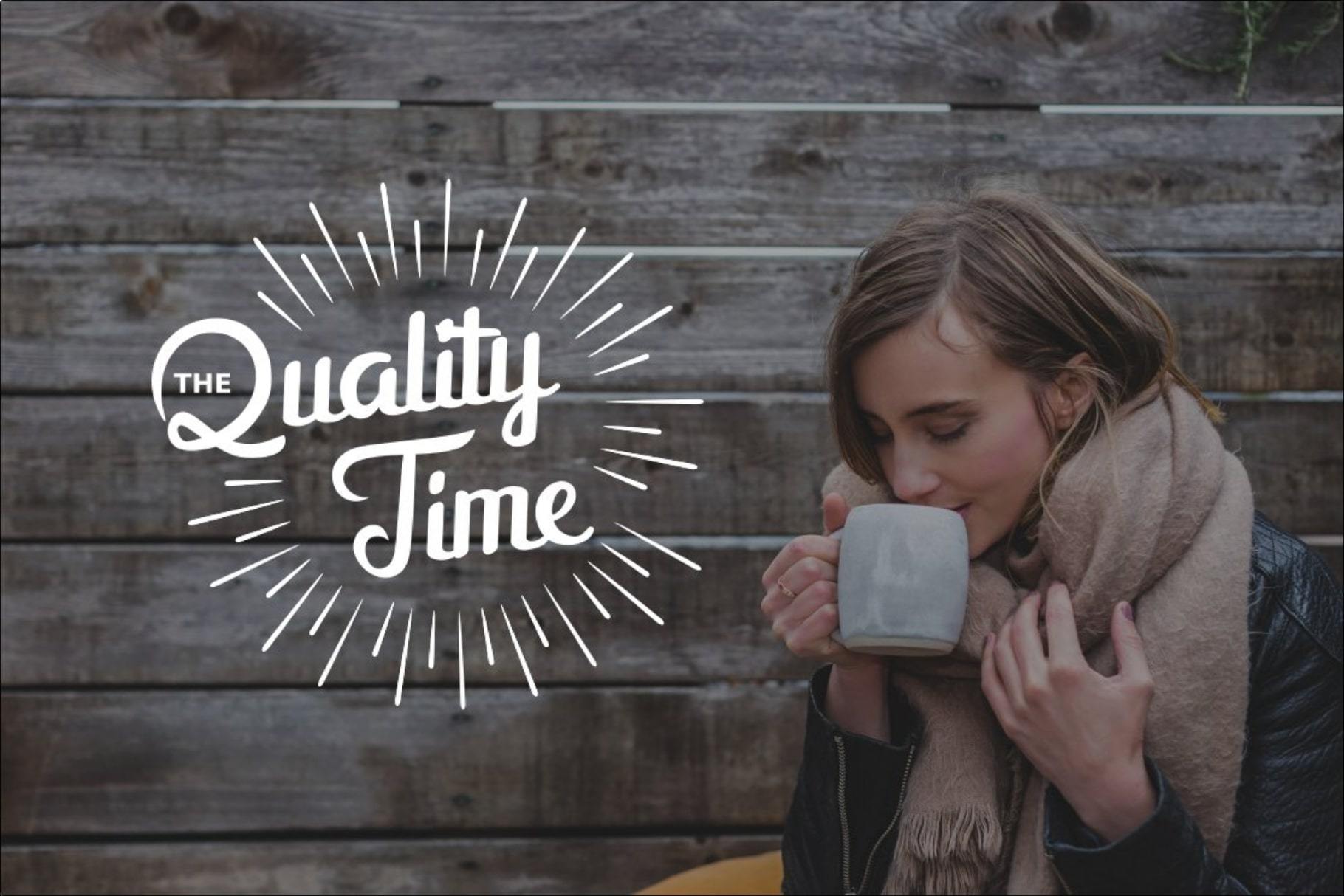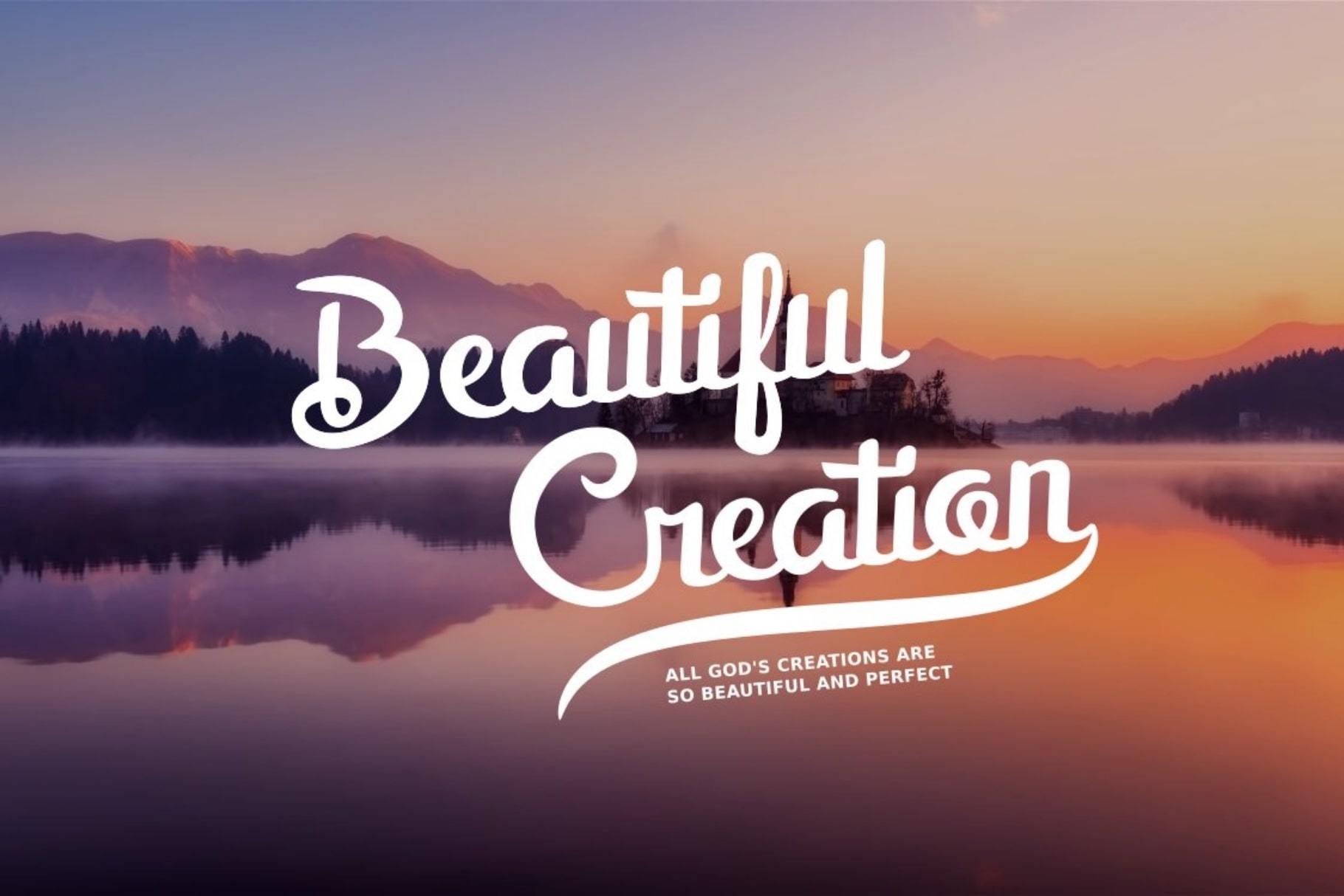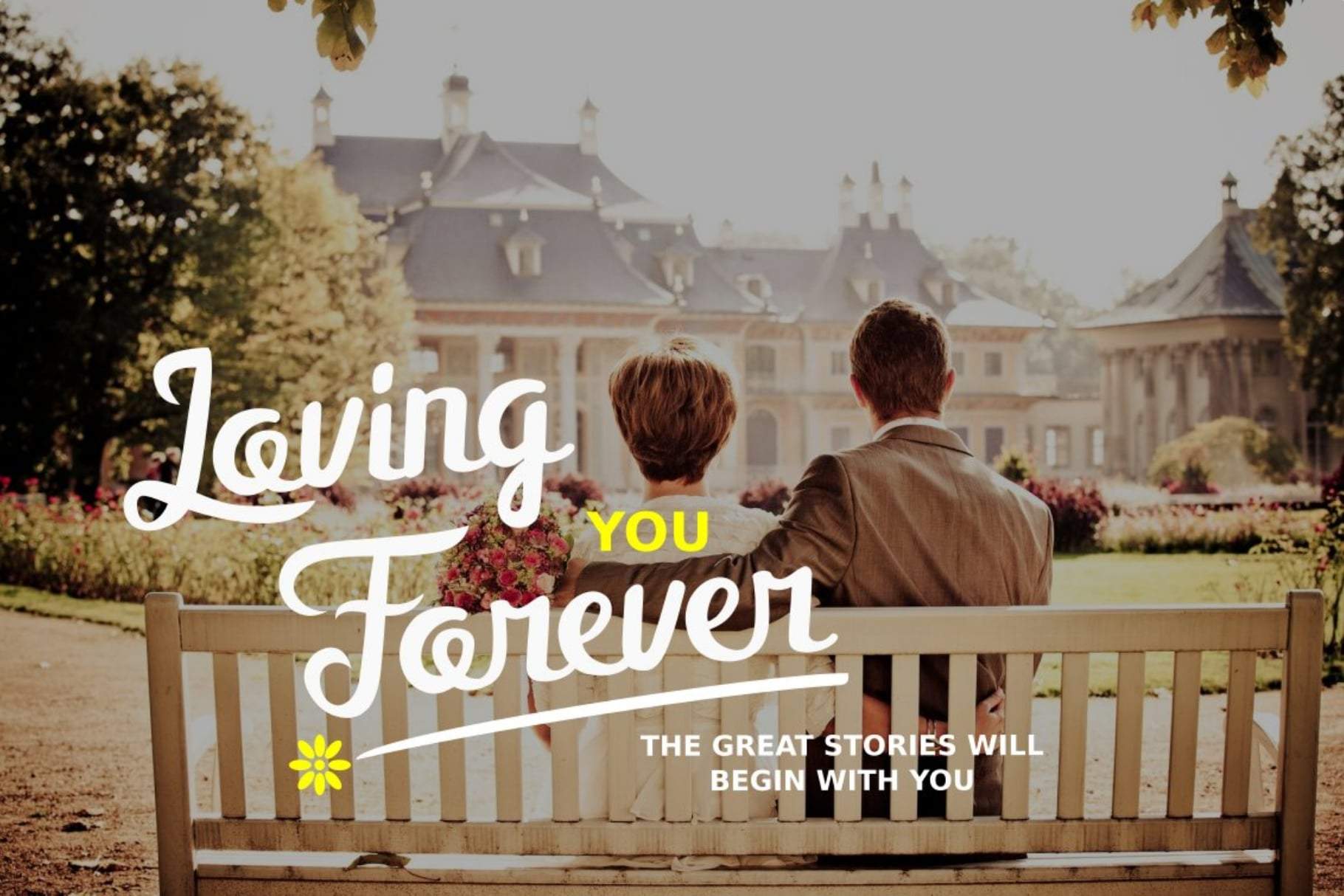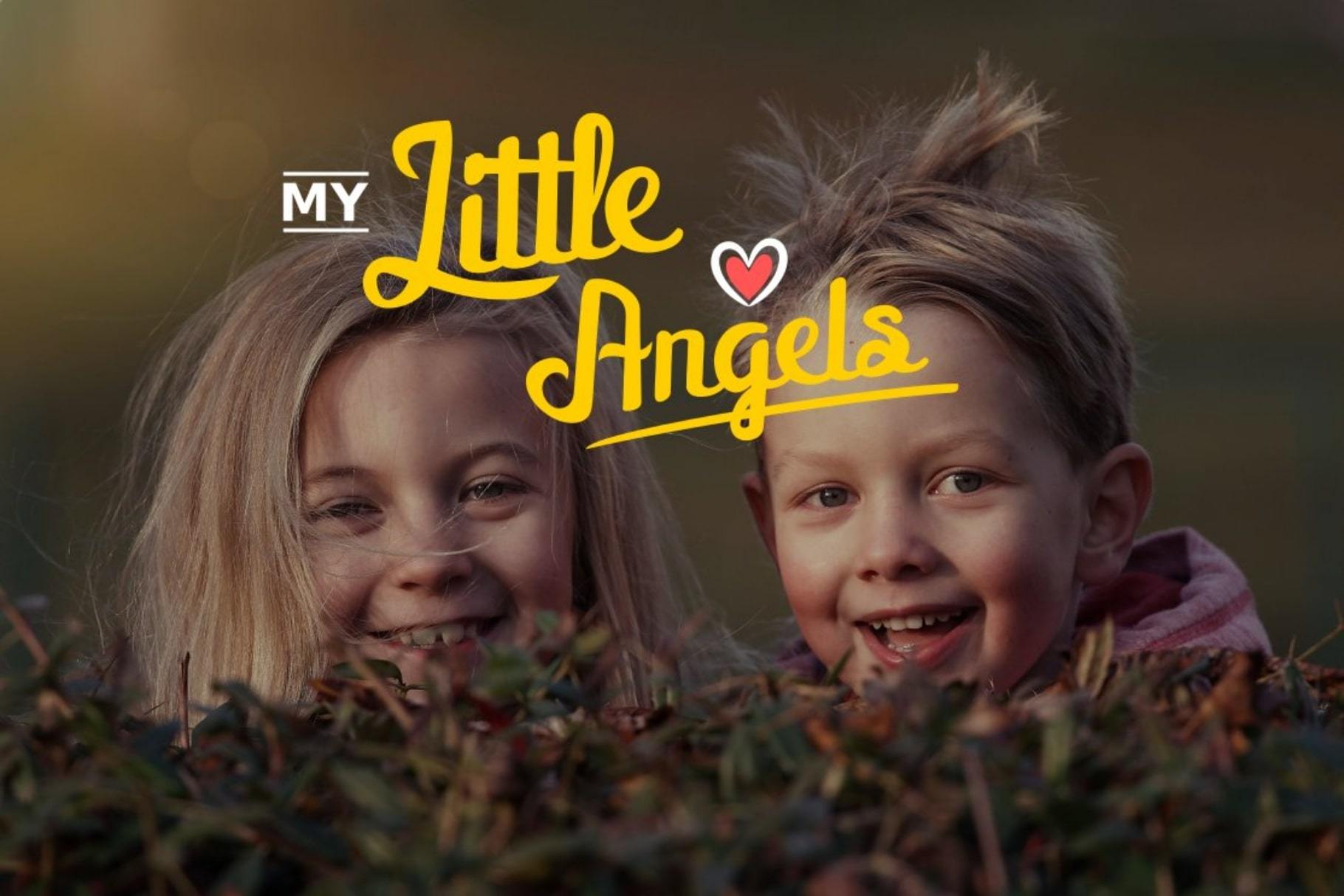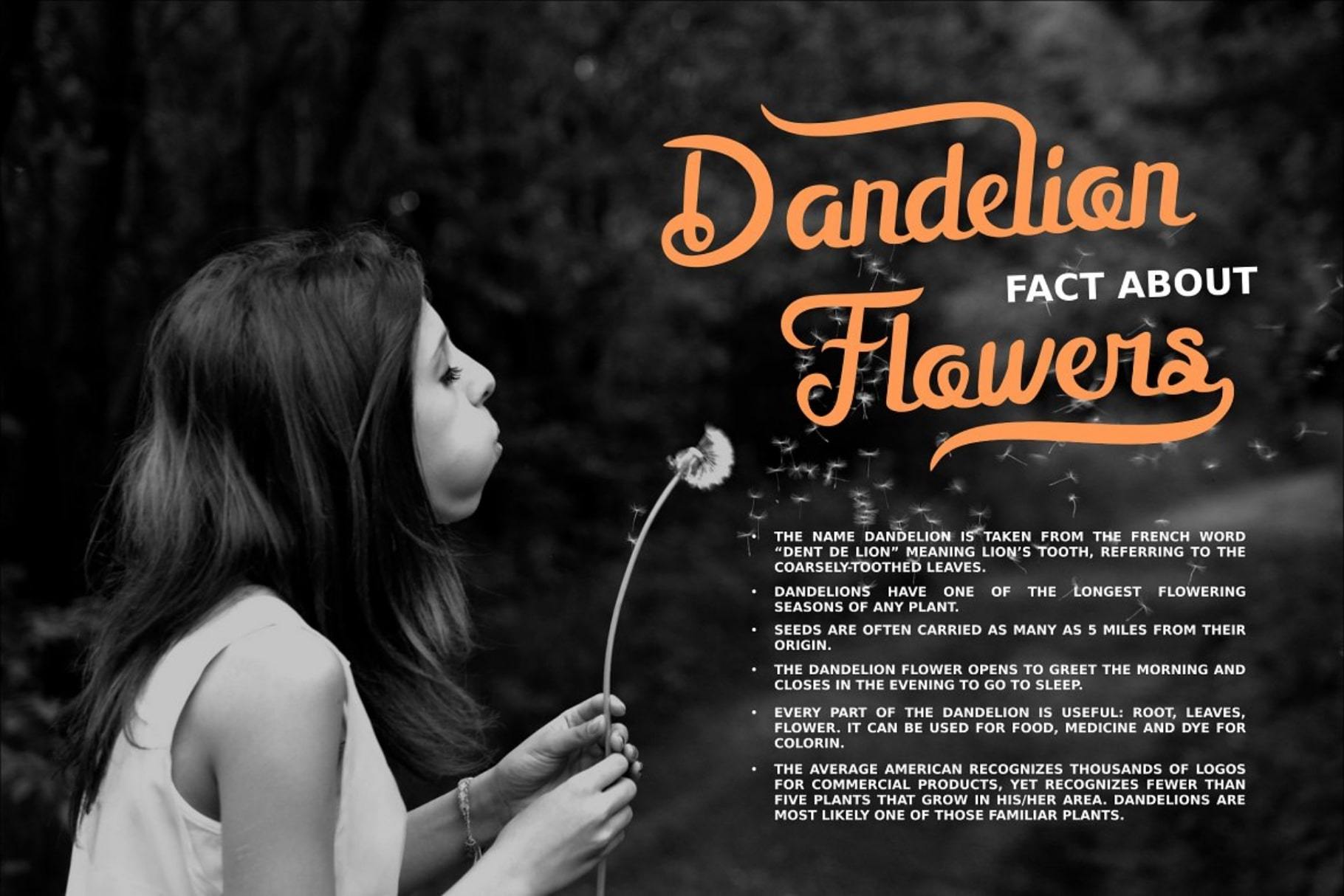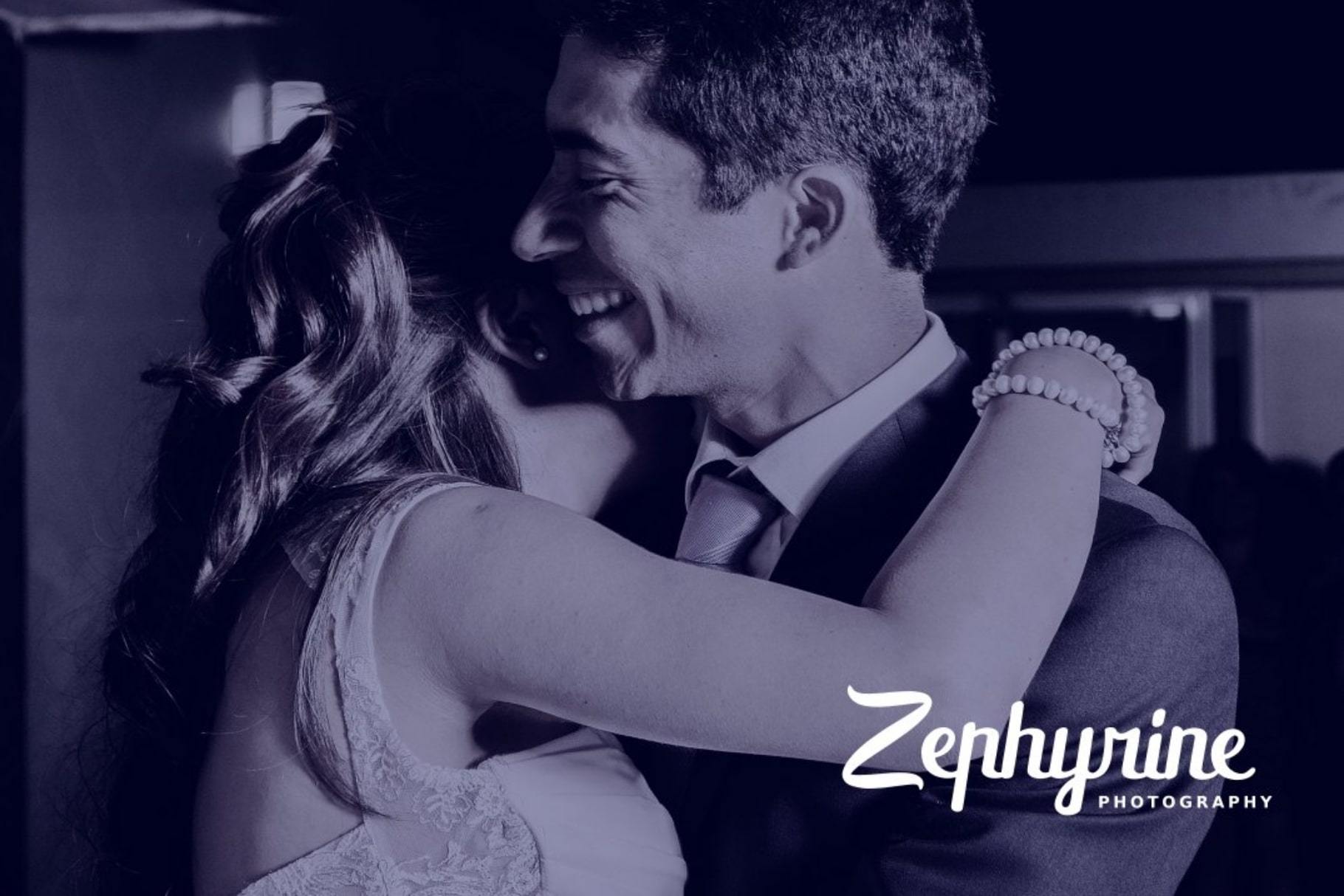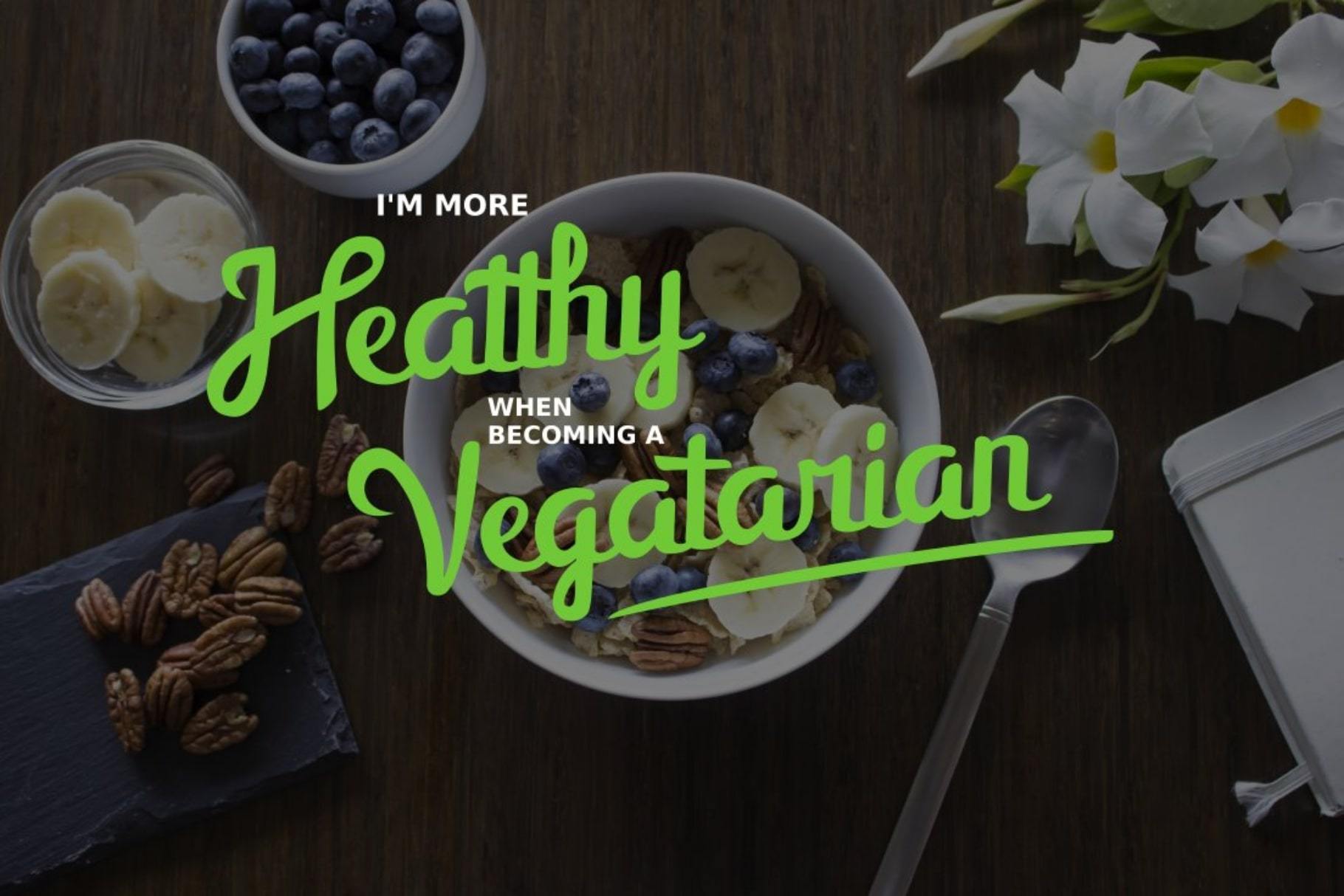
Introducing Mellifret script font. Mellifret is a semi-bold font which have characters that are strong, bold, clean, and elegant. So Mellifret are suitable for poster, logo, cover book & magazine, website tittle, wedding card and etc. This is a package on Mellifrent font: -Multilingual support like are Danish, Cornish, Croatian, Czech, Filipino, French, Portuguese, Hungarian, Irish, English, Finnish, Norwegian, Polish, Romansh, Italian, Swiss German and etc. – Includes ligatures set, alternate font, and swash characters set. I hope you enjoy using mellifret font, if you have anything question about this font please let me know with your comments. Thanks for watching and have a nice day:) Java pep.